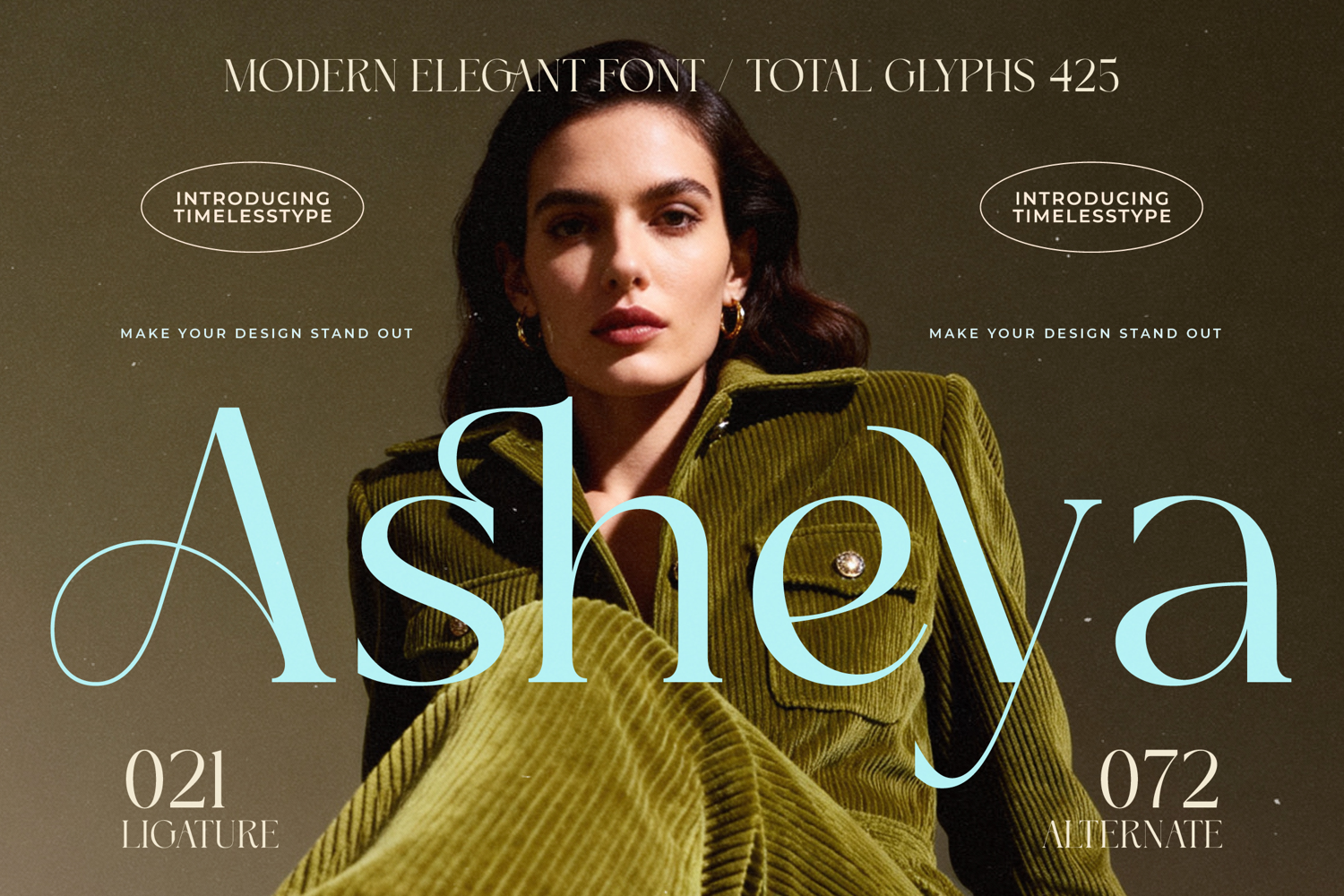
Asheya - Modern Elegant Font
Elevate your brand aesthetic with Asheya - Modern Elegant Font, a striking typeface designed for ultimate sophistication. This font masters the delicate balance between timeless tradition and contemporary flair, featuring dramatic high-contrast strokes and finely honed serifs that push the limits of modern design. The inherent grace of its design ensures your headlines command immediate attention while maintaining an air of luxury and refinement, perfect for establishing a memorable and premium visual identity in a competitive marketplace.